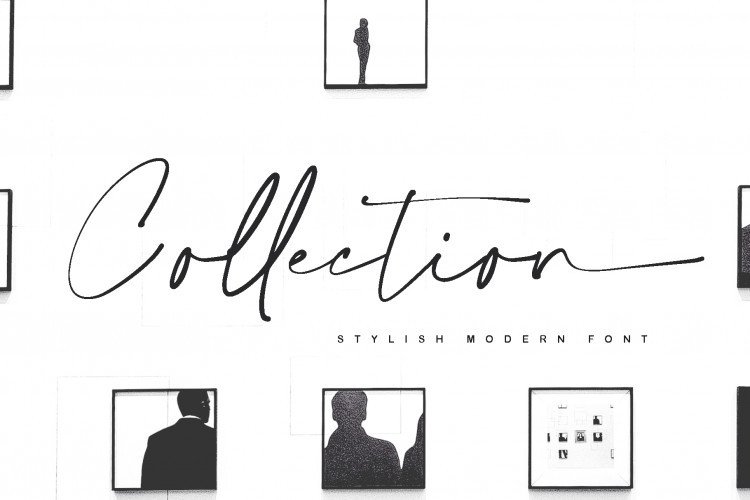
Collection Handwritten Font
Introducing Collection Font. A sleek modern calligraphy signature script that comes with two lowercase stylistic letter sets, premade beginning and ending swashes for uppercase! It is design and shared by alphArt. It’s a handwritten script font with a Gel pen and natural style, this font is great for your next creative projects such as watermark on photography, quotes, album cover, logo, business card, and many other design project.